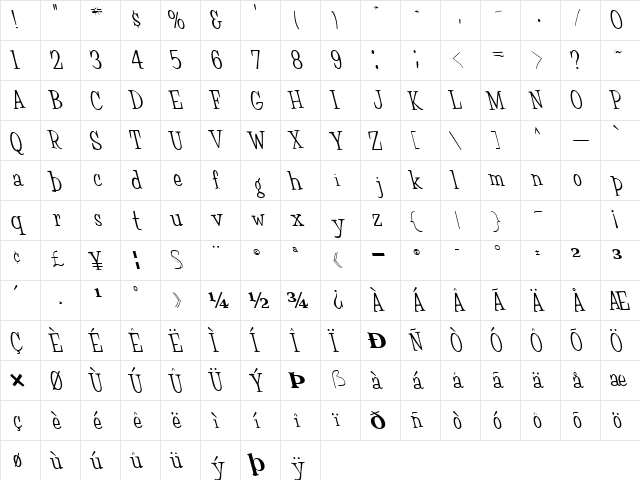
DisCardedWriting85 Regular
Design Context for DisCardedWriting85 Typeface
DisCardedWriting85 takes a measured approach to typography — its balanced proportions and neutral character make it a reliable workhorse for both digital and print work.